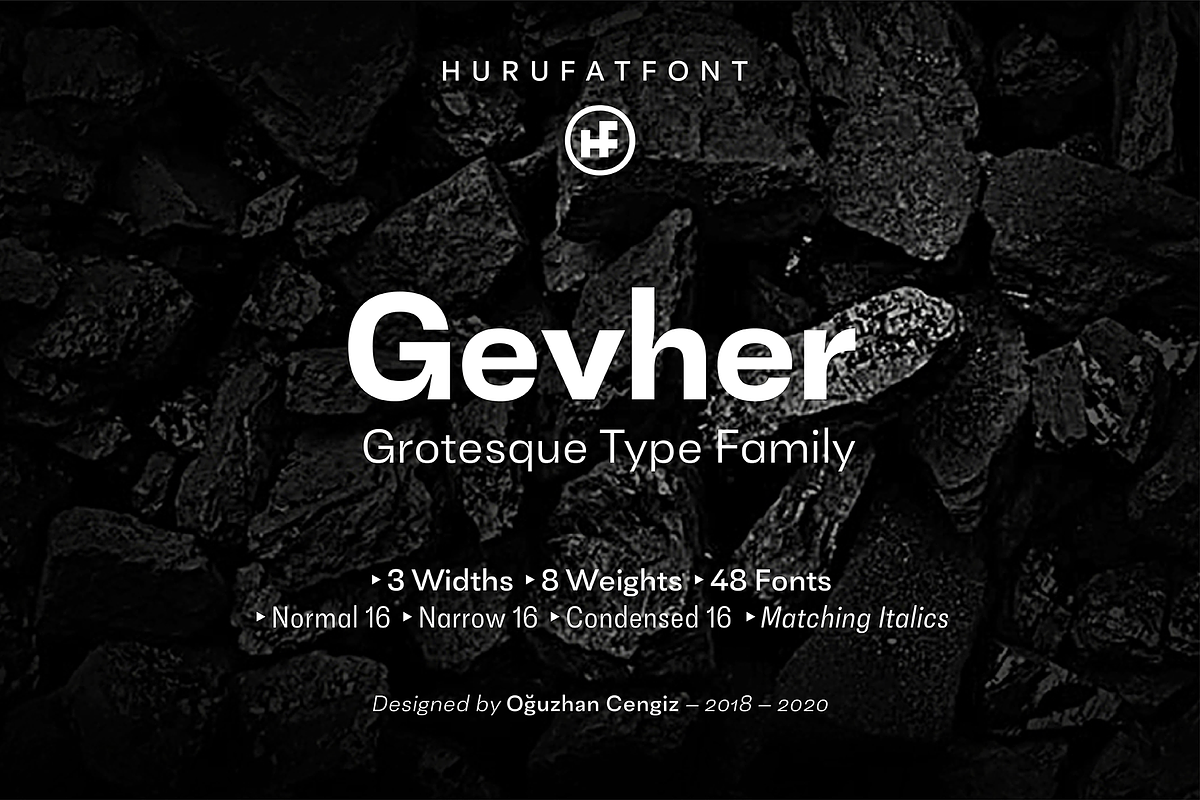
Clean, modern, and highly versatile, Gevher Grotesque Font Free Download is a contemporary sans-serif typeface rooted in classic grotesque design principles. Perfect for branding, editorial layouts, websites, packaging, and user interfaces, this font delivers a refined balance between neutrality and character.
Gevher Grotesque offers multiple weights, making it a flexible choice for everything from bold headlines to clear body text. Its sharp lines and carefully adjusted spacing ensure maximum readability while maintaining a stylish, professional appearance across all platforms.